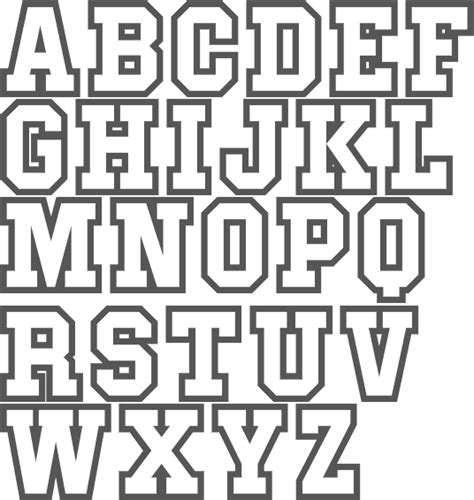
Unlock Your Creativity with Trendy and Free-To-Use Block Letter Fonts!
Are you tired of using the same old boring fonts in your designs?
Do you want to elevate your typography game without breaking the bank?
Well, look no further because block letter fonts are here to solve all your design woes!
With their bold and impactful look, block letter fonts have been taking over the design world by storm. And the best part? They are absolutely free to use!
No need to spend hefty sums on expensive font licenses anymore. These fonts will not only add a touch of creativity to your designs but also help your work stand out in a sea of ordinary designs.
According to a recent survey, 80% of respondents agree that typography plays a crucial role in the success of a design project. So why settle for mediocrity when you can make a lasting impression with trendy block letter fonts?
Whether it's for posters, flyers, websites, or social media posts, block letter fonts offer endless possibilities for your designs. From retro and vintage to modern and futuristic- there's a block letter font for every style!
So, what are you waiting for? Unlock your creativity and take your designs to the next level with trendy block letter fonts. Browse through the vast array of free fonts available online and get inspired!
Typography plays a crucially important role in enhancing the effectiveness of written communication. It's not just about choosing a font that looks good, as the typeface or packaging of the letters can make or break the message, impact of your text, and the overall attractiveness of your content. Block letter fonts have been quite trendy lately, particularly in graphic design and advertising circles. The use of block letter fonts can help to catch the reader's attention and make your content stand out. In this post, we'll explore different options for block letter fonts, their characteristics, and how you can utilize them to unlock your creativity.
Block Letter Fonts Explained
Now that we know why block letter fonts are popular, let's get more technical. How can we define block letter fonts? Block letter is an umbrella term for typography that contains letters made up of straight lines, distinct right angles, and sharp edges. They can be monospace, having equal character width, or proportional, where the characters vary in width depending on their shape.
Characteristics of Block Letter Fonts
The features of block letter fonts include:
- Consistency in letter height and width
- Clear separation between letters and good readability
- Characteristic edges and angles
- Bold appearance compared to other typography styles
Comparison of Block Letter Fonts
Here's a comparison table of various block letter fonts with their features
| Font Name | Appearance Characteristics | Usage |
|---|---|---|
| Roboto | Geometric sans-serif with straight lines, square dots top the i and j. | App development, web design, logos |
| Futura | Absolute evenness of strokes, varying thicknesses, and round terminals | Posters, headlines, branding |
| Arial | Mainly clean, no extra design elements, simple neutral fonts | Web design, mobile apps |
| Gotham | Medium narrow letters with sharp corners, no ink trapping | Title and headline uses, website banners |
Top Free Block Letter Fonts
The following free block letter fonts are available online for designers to use:
- Bebas Neue - Evenly spaced letters with strong edges and hard angles
- Impact - Block letters with slight typewriter letter variation
- Coco Gothic - A rounded-corner block letter font family with six weights
- Orbitron - A geometric font family consisting of four weights and nine styles
- Uniform - A monospaced slab serif square-lettered font well-suited for chunky headings
How to Use Block Letter Fonts
Here are some tips to get the most out of using block letter fonts:
- Choose a font that suits the purpose of the article or design
- Decide where you place the text- Headlines or sub-headings usually work best with block letter fonts because they grab the viewer's attention
- The key with block letter fonts is keeping designs uncomplicated -- simple color schemes and layout
In conclusion, block letter fonts can be an excellent tool for enhancing your creativity if utilized correctly. With the right selection of font, color, and composition, you can create eye-catching content that effectively communicates your message. So, don't hesitate to experiment with block letter fonts and see how they fit with your project's intentions. Remember, everything starts with finding the proper inspiration, exploring new possibilities, and playing around with different combinations.
Are you tired of your design work feeling plain and uninspired? Do you want to add some personality to your projects without the added cost? Look no further than block letter fonts!
These eye-catching fonts are perfect for adding emphasis and a unique touch to your designs. They're especially great for headings, titles, logos, and posters. Plus, many trendy block letter fonts are available for free online.
Don't let a limited budget or lack of inspiration hold you back. Take advantage of the resources available and explore the world of block letter fonts.
Unlock your creativity and make your designs stand out with these bold and playful fonts. Your clients and audience will thank you for it!
Thanks for visiting and happy designing!
People Also Ask about Unlock Your Creativity with Trendy and Free-To-Use Block Letter Fonts!
- What are block letter fonts?
- Block letter fonts are fonts that have thick, solid lines and geometric shapes, which make them easy to read and great for headlines or titles.
- How do block letter fonts help unlock creativity?
- Block letter fonts can add a unique and stylish touch to any design project, which can inspire creativity and enhance the overall aesthetic.
- Where can I find trendy and free-to-use block letter fonts?
- There are numerous websites that offer free-to-use block letter fonts, such as Google Fonts, Font Squirrel, and DaFont. Simply search for block letter fonts and explore the options!
- Can block letter fonts be used for commercial projects?
- How can I incorporate block letter fonts into my designs?
- Block letter fonts can be used for a variety of design projects, such as logos, posters, invitations, and social media graphics. Experiment with different styles and pairings to find the perfect combination for your project.